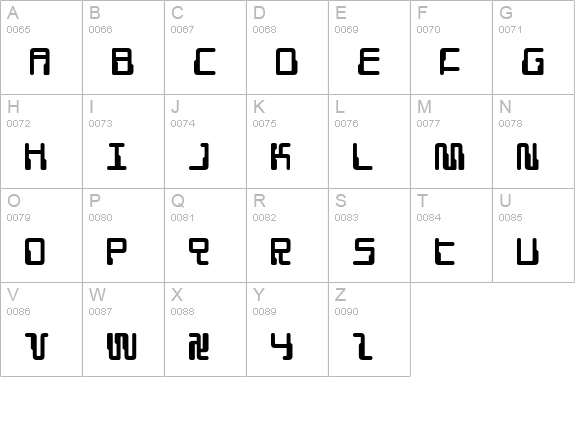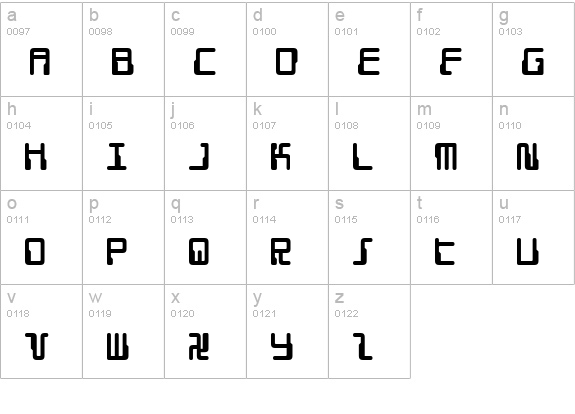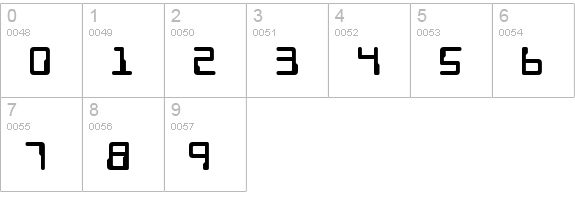
Introducing Droid Lover font, a sleek and modern typeface designed for those who have a passion for all things futuristic and tech-inspired. This font is perfect for creating eye-catching designs that exude a sense of cutting-edge sophistication. With its clean lines and geometric shapes, Droid Lover is sure to make a bold statement in any project. What sets Droid Lover font apart is not only its striking design, but also the fact that it is completely free to download. Yes, you read that right - this unique and stylish font can be yours at no cost! Simply head over to FontsMarket.com to grab your very own copy of Droid Lover and start using it in your designs today. Whether you're working on a website, a poster, a logo, or any other creative project, Droid Lover font will add a touch of modern elegance that will set your work apart. Don't miss out on this fantastic opportunity to enhance your designs with this cutting-edge typeface - download Droid Lover for free now!